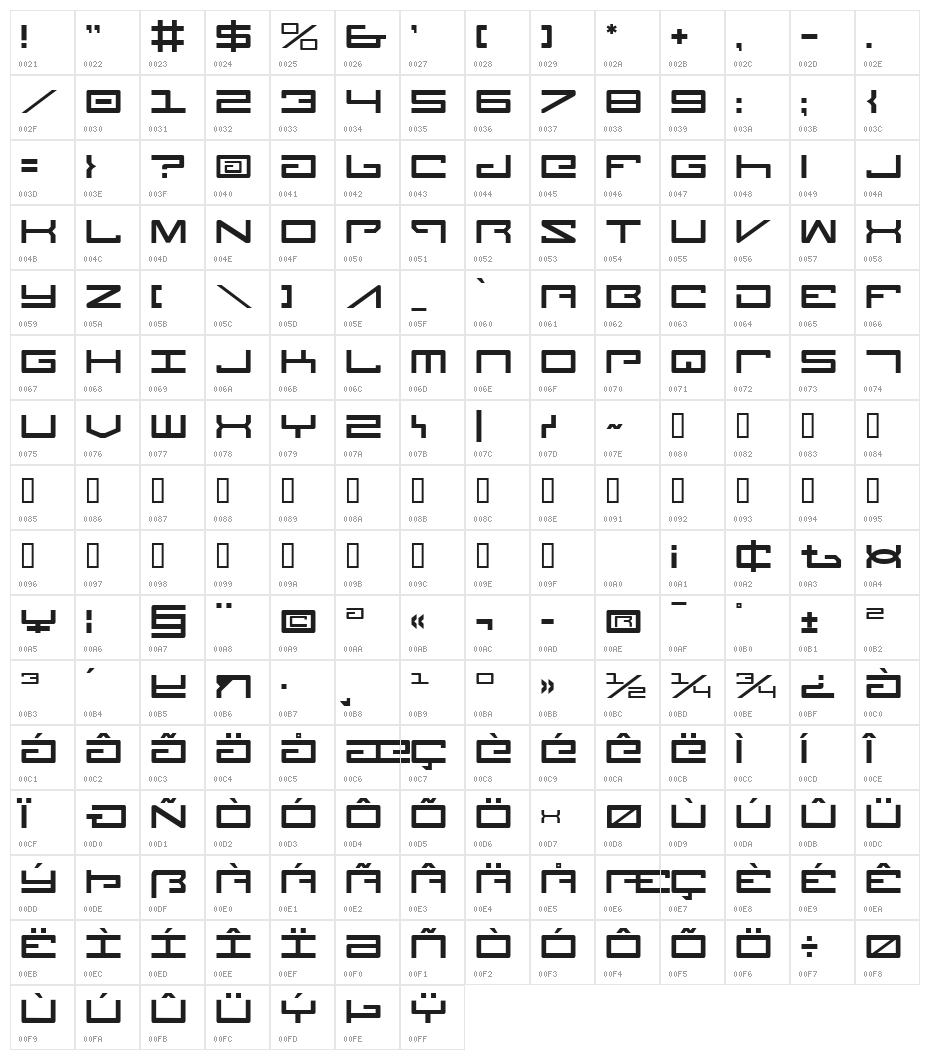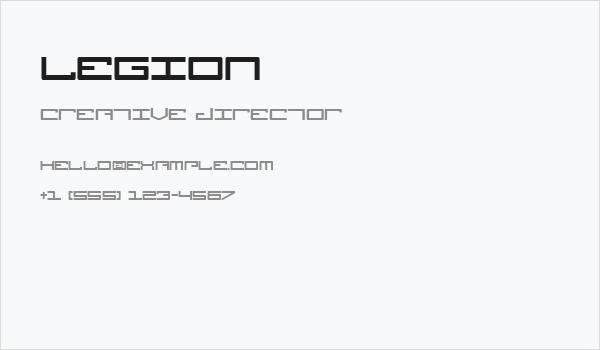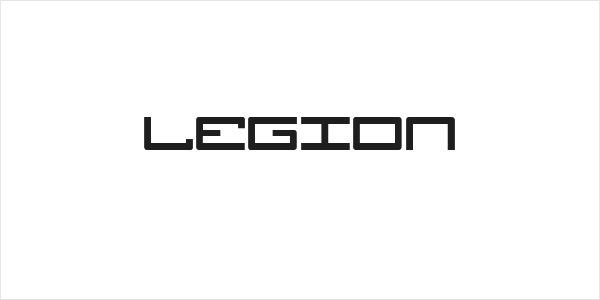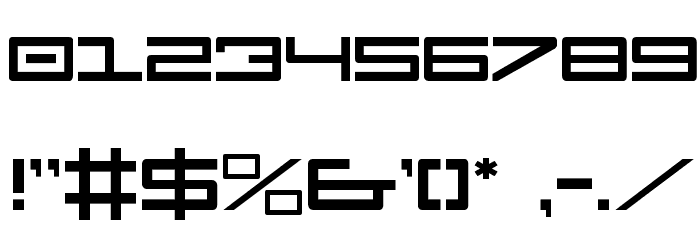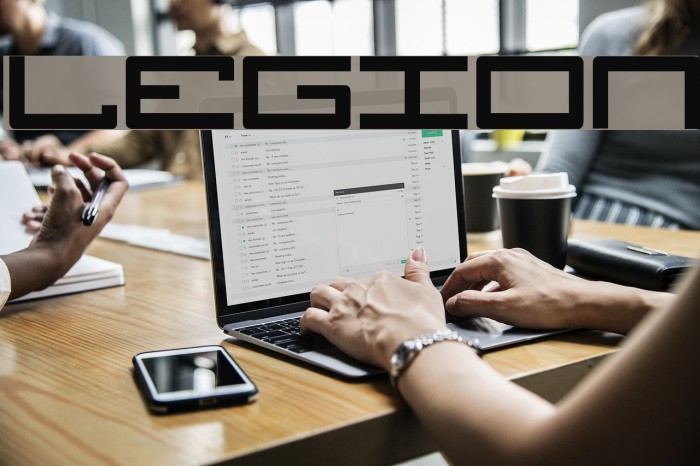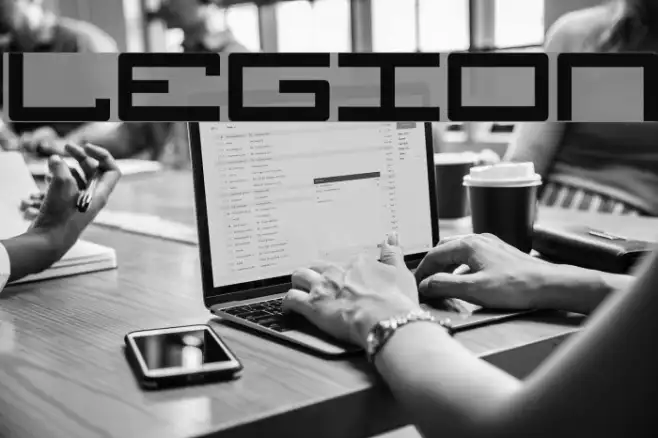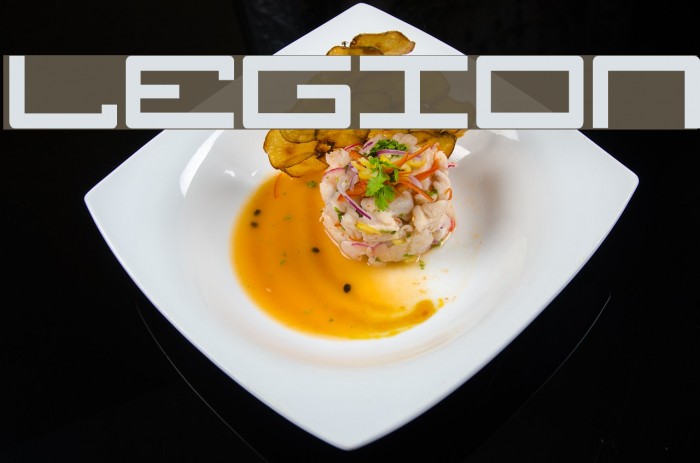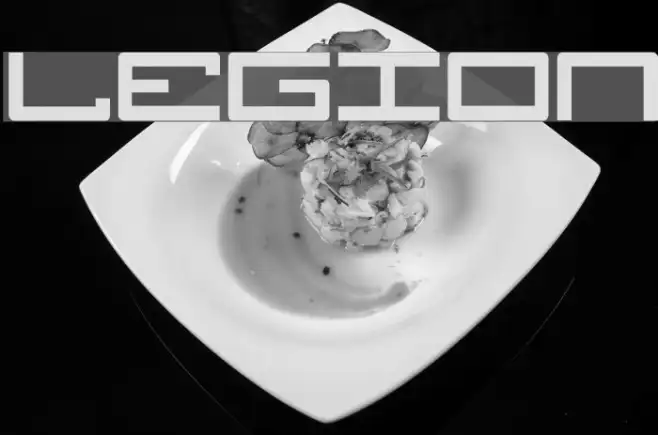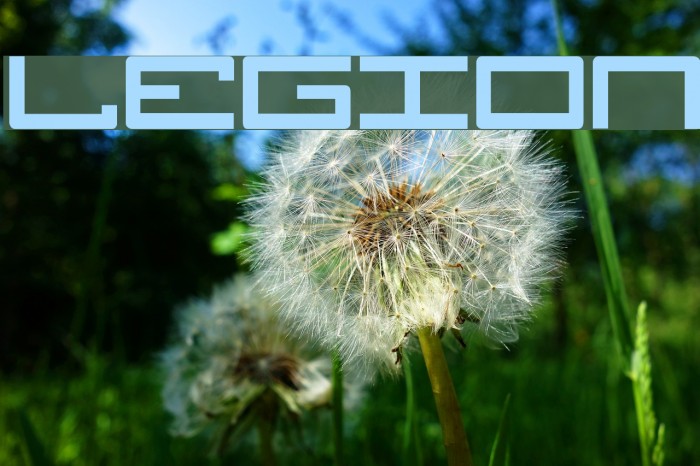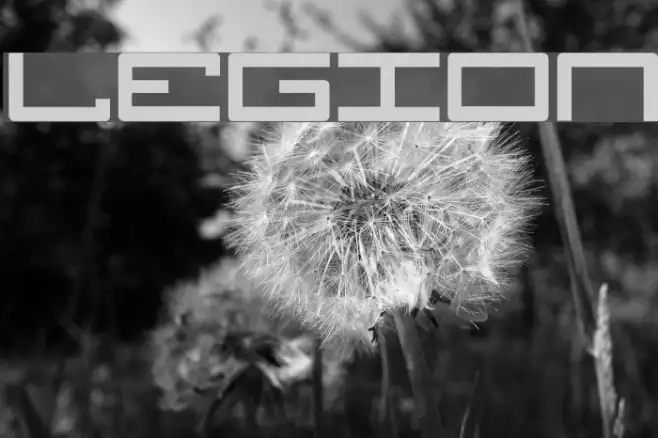
Legion Font
Legion Description
This font features a futuristic and geometric design, characterized by its angular shapes and sharp edges. The letters are constructed with a consistent stroke width, giving it a uniform appearance. The uppercase and lowercase letters maintain a similar height, creating a cohesive look across the alphabet. The numerals and special characters follow the same design principles, ensuring visual harmony. This font's unique style makes it suitable for projects that require a modern and tech-inspired aesthetic.
| Proposed Projects | Ideal for sci-fi themed designs, tech branding, video game interfaces, and modern posters. |